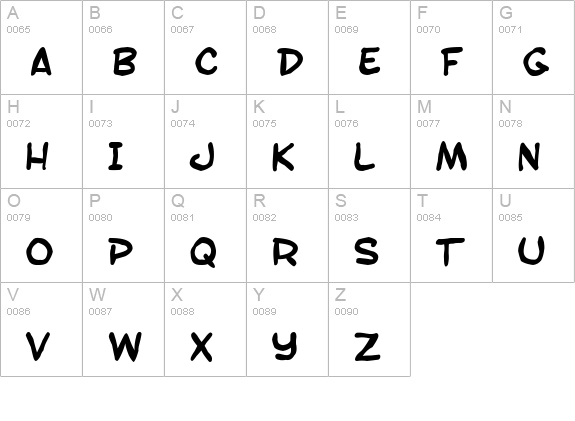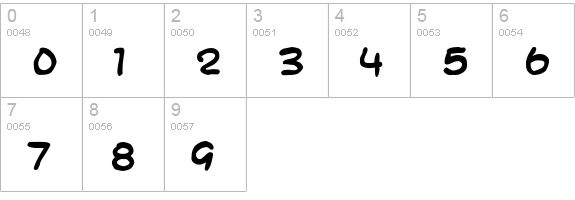
SF Toontime Blotch Bold is a strong, high-contrast variant in the SF typeface family \xE2\x80\x94 well suited to headlines, attention-grabbing titles, and strong calls-to-action.
SF Toontime Blotch Bold font is a whimsical and playful typeface that brings a touch of fun and excitement to any design project. With its bold and bubbly letterforms, this font is perfect for creating eye-catching headlines, titles, and logos that demand attention. The unique blotchy texture adds a touch of creativity and uniqueness to your designs, making them stand out from the crowd. What sets SF Toontime Blotch Bold font apart is not just its fun and vibrant aesthetic, but also the fact that it is freely available to download at FontsMarket.com. This means that you can easily incorporate this font into your designs without breaking the bank. Whether you're a professional designer looking for a fresh and distinctive font or a creative individual looking to add a touch of playfulness to your personal projects, SF Toontime Blotch Bold font is the perfect choice. This font is incredibly versatile and can be used in a wide range of design applications. From children's books and toys to posters, advertisements, and websites, SF Toontime Blotch Bold font adds a sense of joy and excitement to any design. Its bold and legible letterforms ensure that your message is easily conveyed, while the unique blotchy texture adds a touch of creativity and personality. Downloading SF Toontime Blotch Bold font from FontsMarket.com is quick and easy. Simply visit the website, locate the font, and click the download button. Once downloaded, you can install the font on your computer or device and start using it in your designs right away. Whether you're a professional designer or a novice, this font is user-friendly and can be easily incorporated into various design software. So why wait? Add a splash of fun and creativity to your designs with SF Toontime Blotch Bold font. Download it for free at FontsMarket.com and let your imagination run wild. Whether you're designing for print or web, this font is sure to make a lasting impression on your audience. So go ahead, download SF Toontime Blotch Bold font today and bring your designs to life!